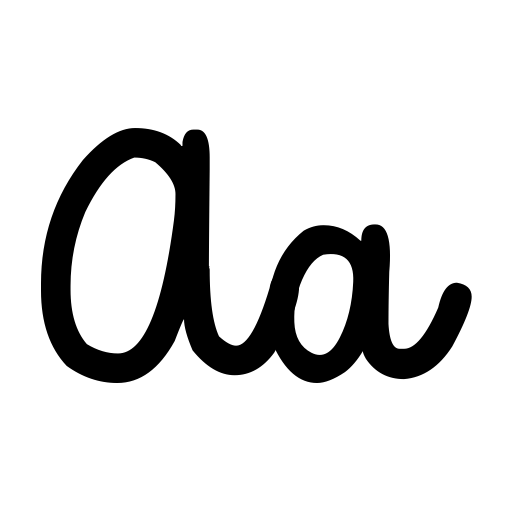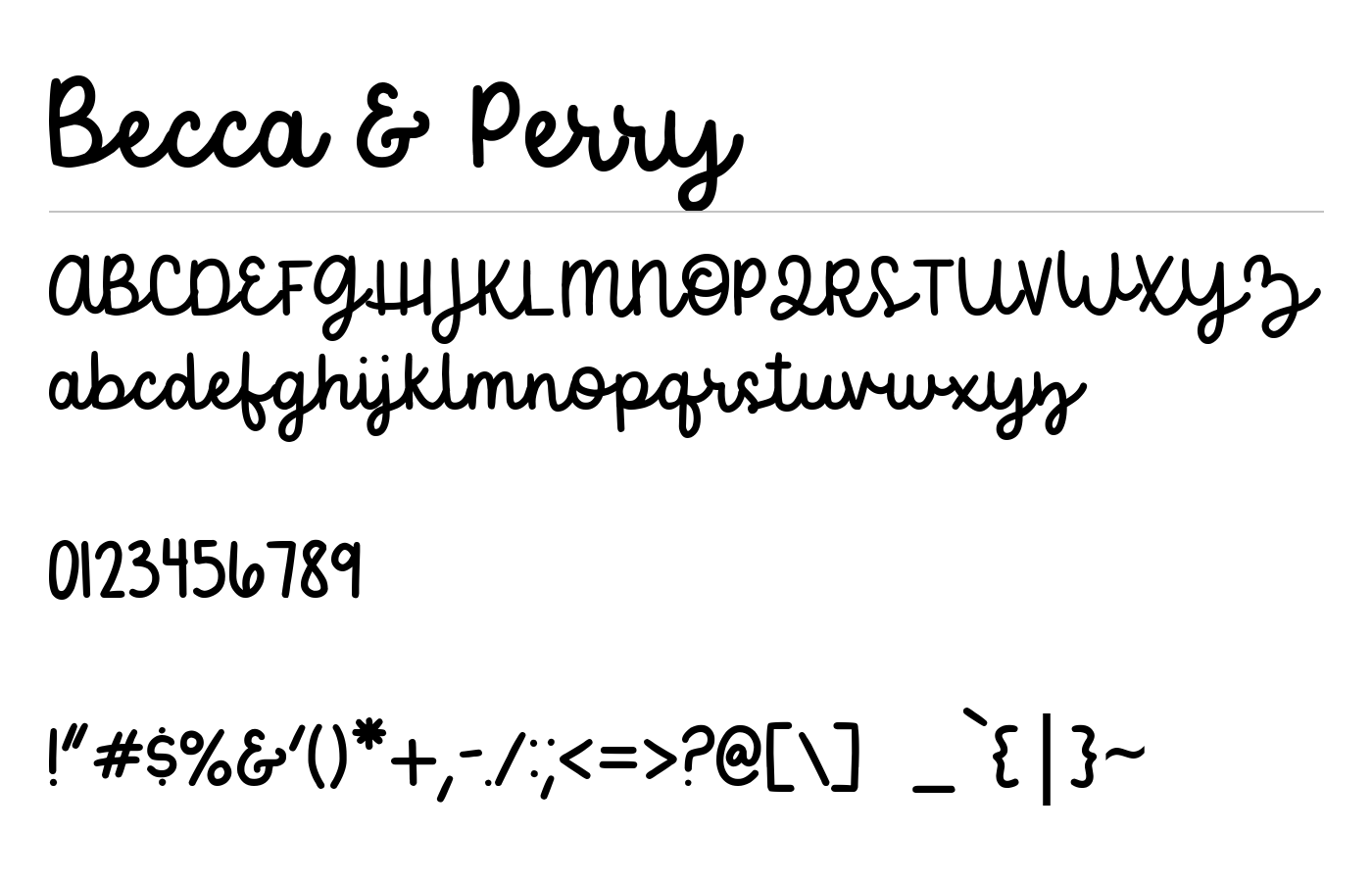
Becca & Perry is a playful, handwritten script font with a casual and friendly vibe. It features smooth, rounded strokes with a moderate x-height, lively letterforms, and consistent stroke weight that make it easy to read while retaining a warm, personal touch. This font works wonderfully for invitations, branding, children’s products, and any design needing an approachable, cheerful look.
Becca & Perry Font
About Becca & Perry Font